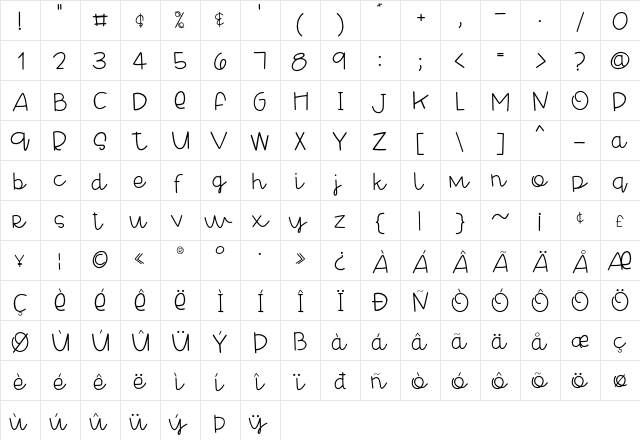
Cheesy Enchilada Regular
Design Context for Cheesy Enchilada Typeface
Cheesy Enchilada offers clean, dependable letterforms without strong stylistic allegiance, making it a practical choice for designers who need flexibility.